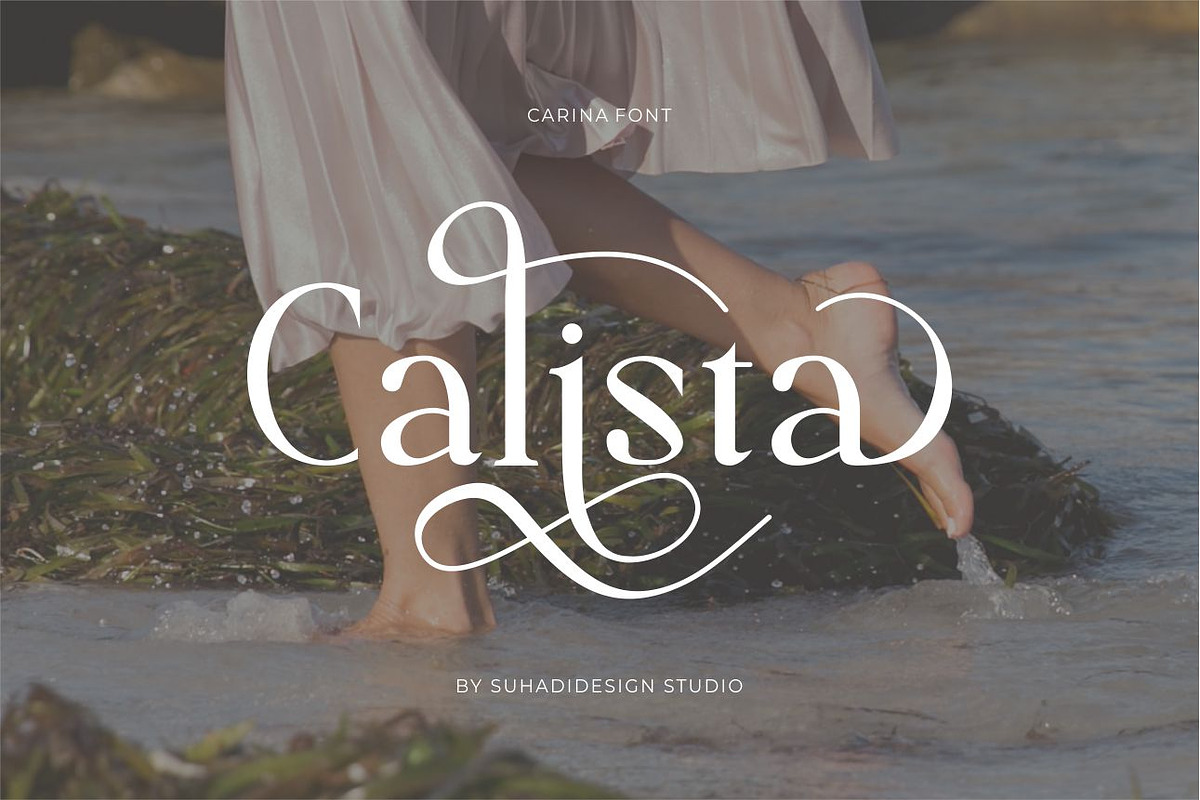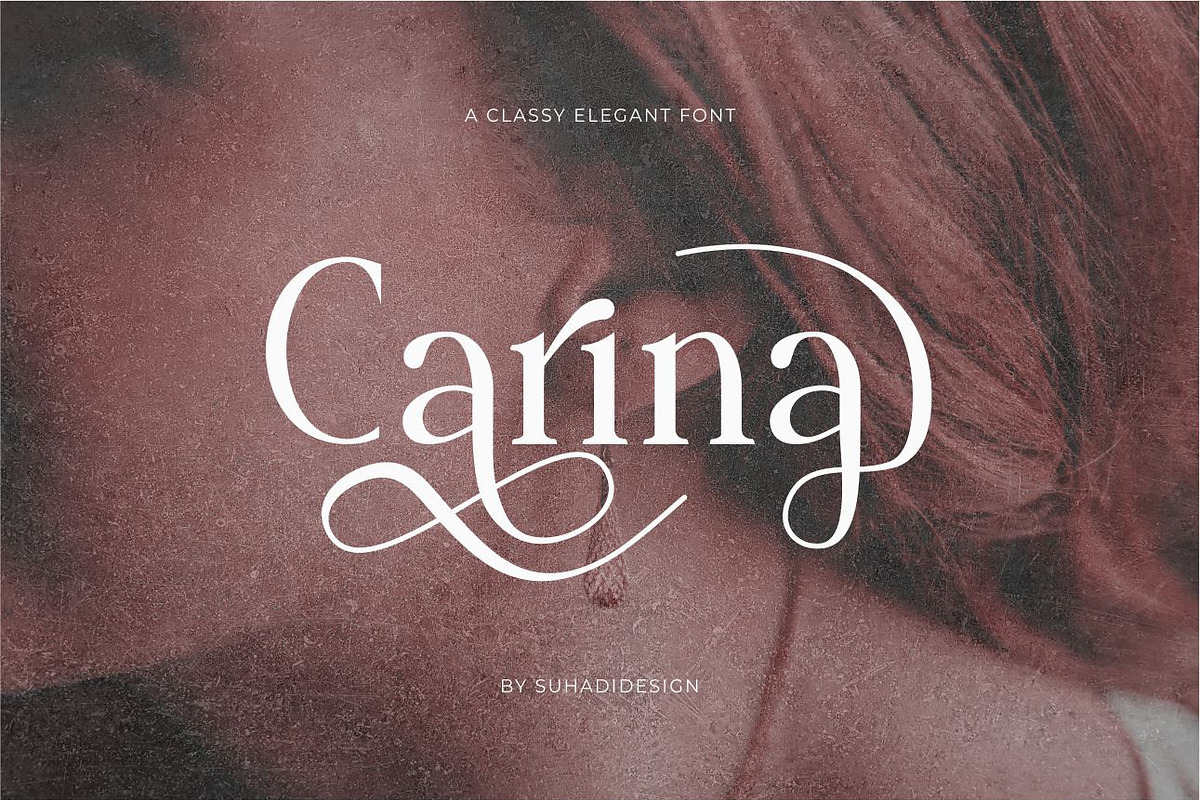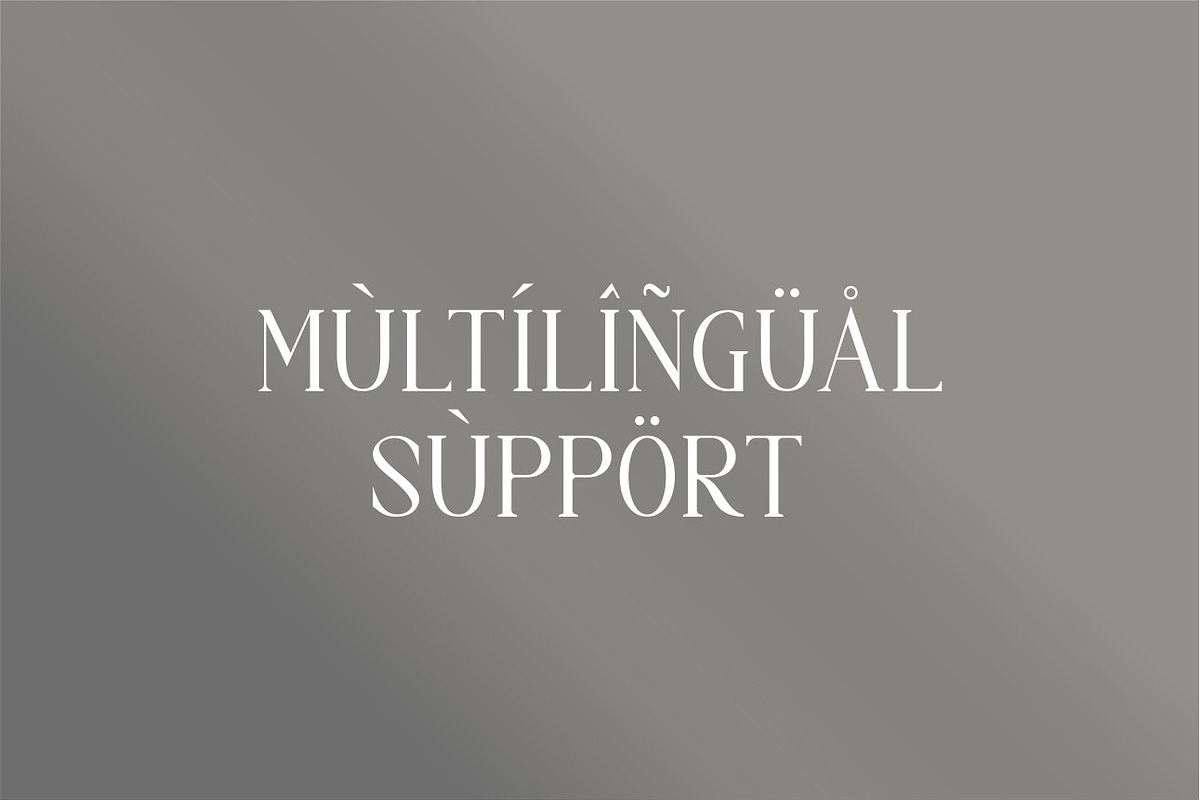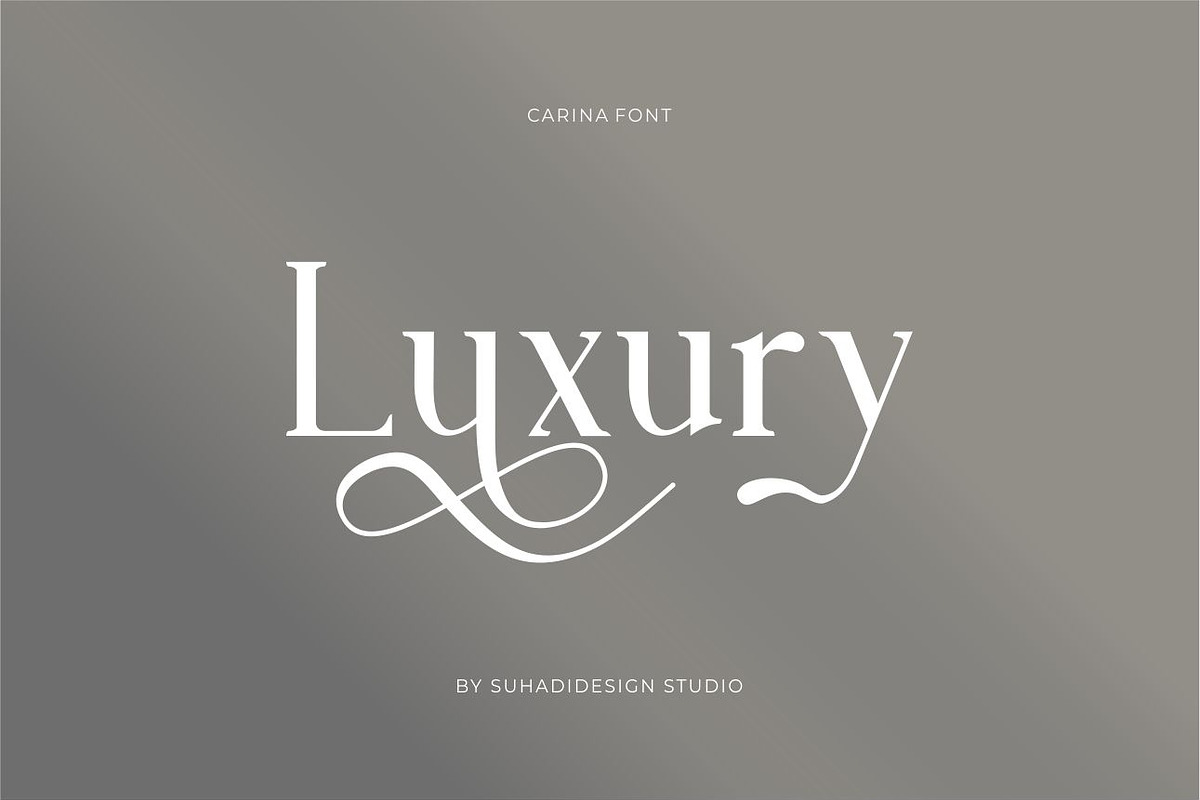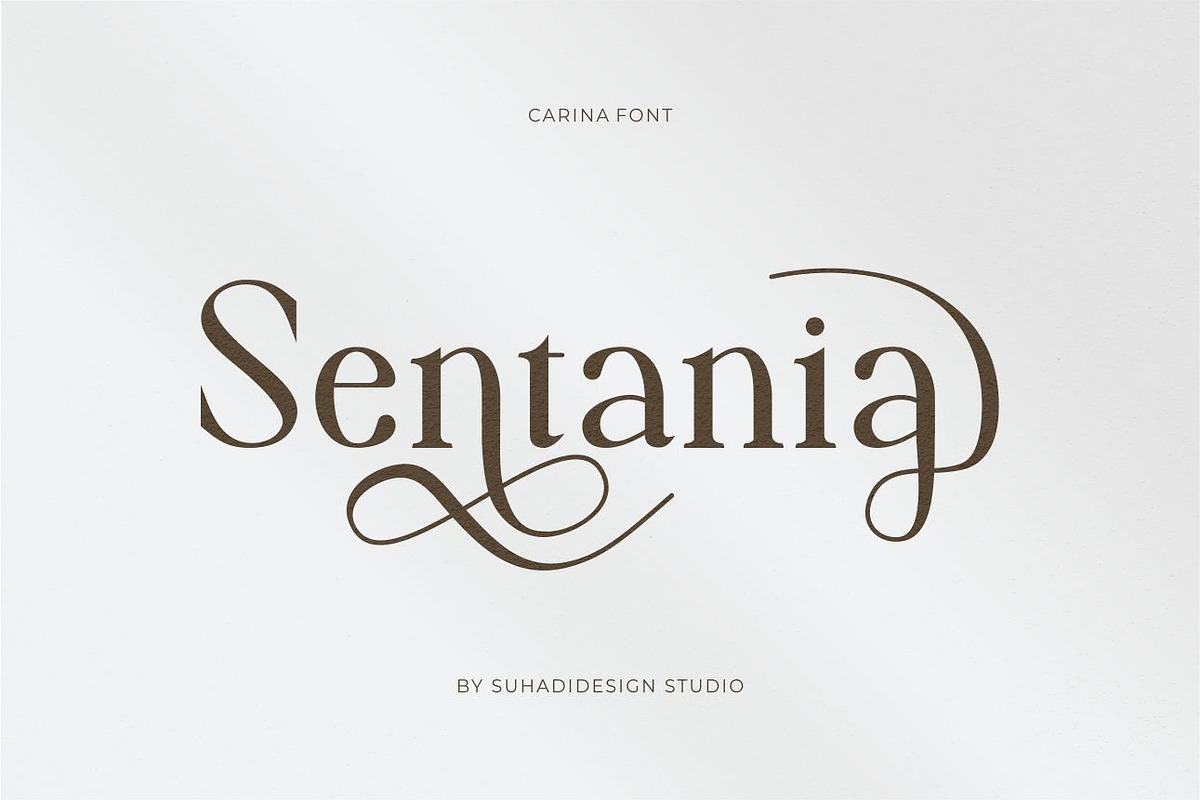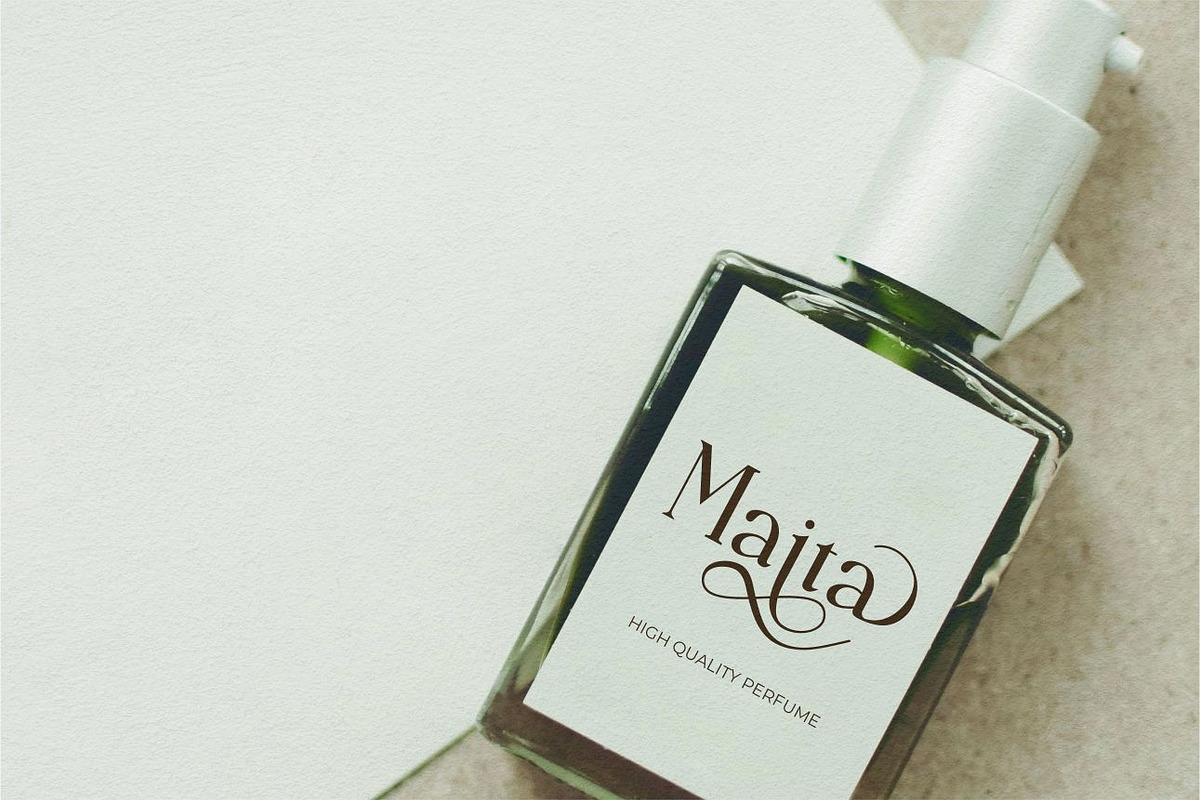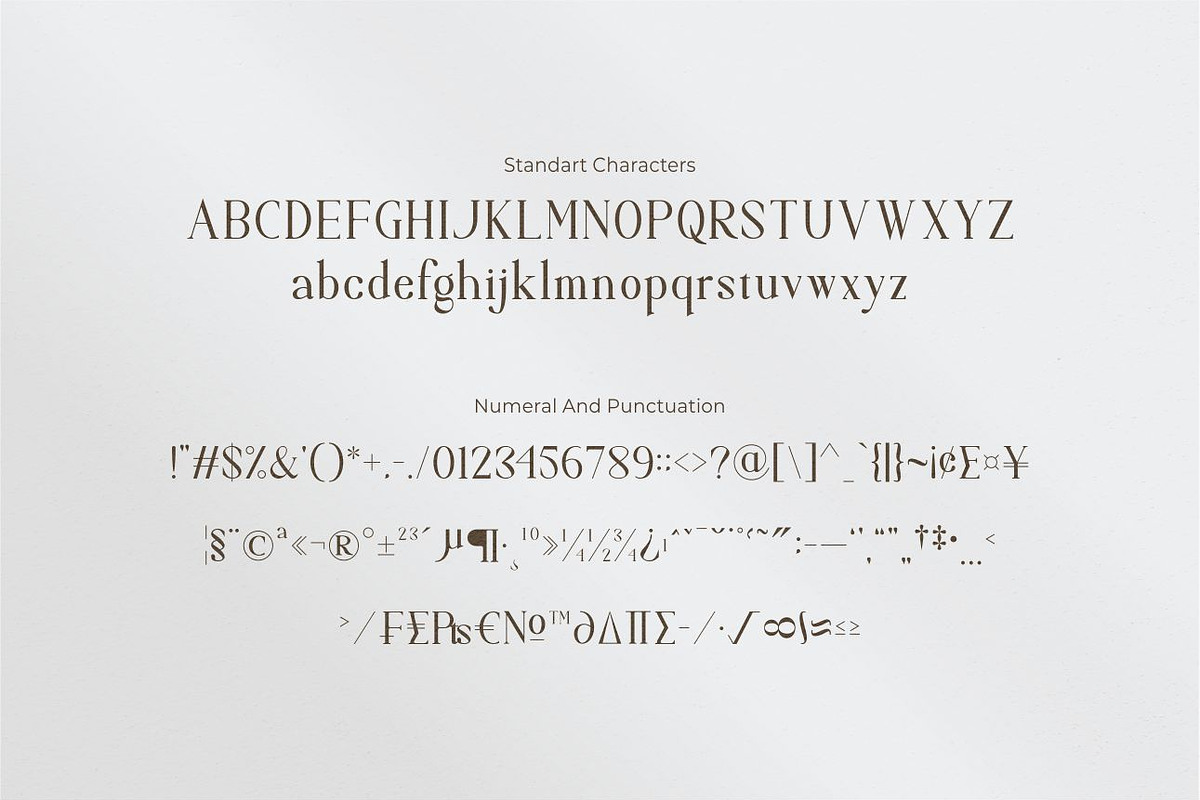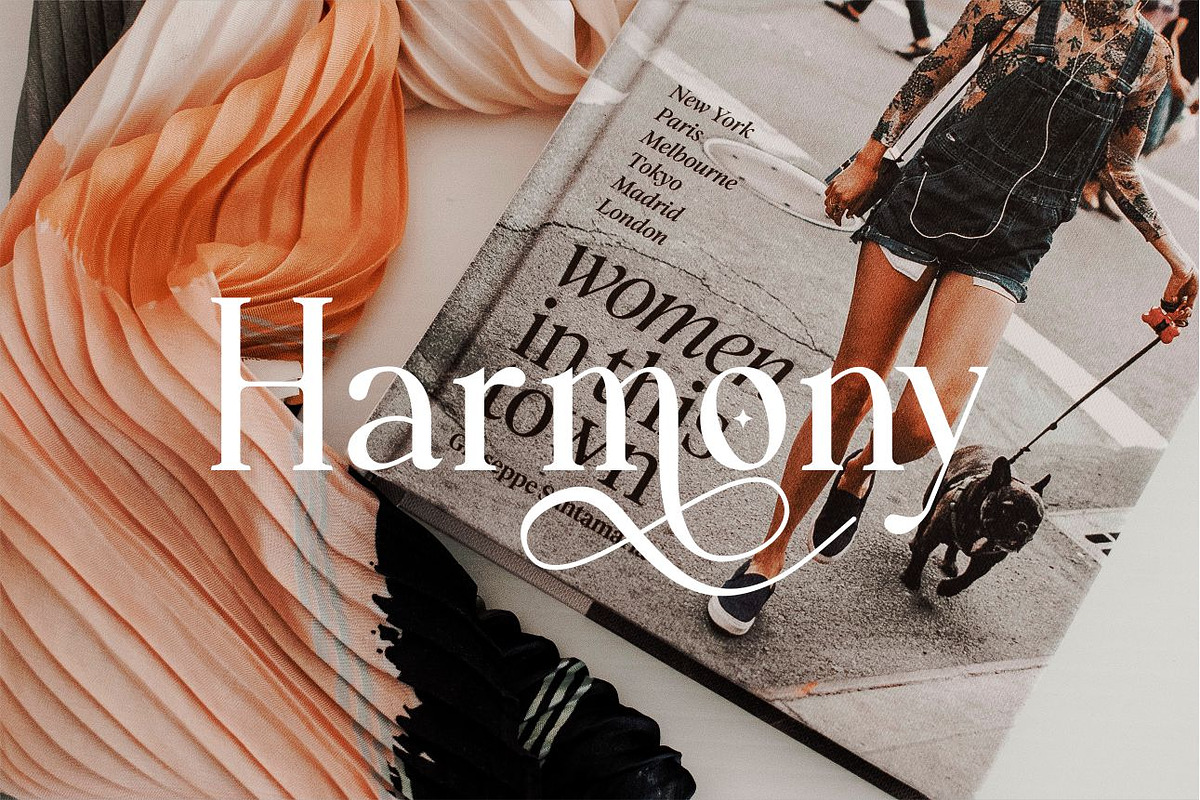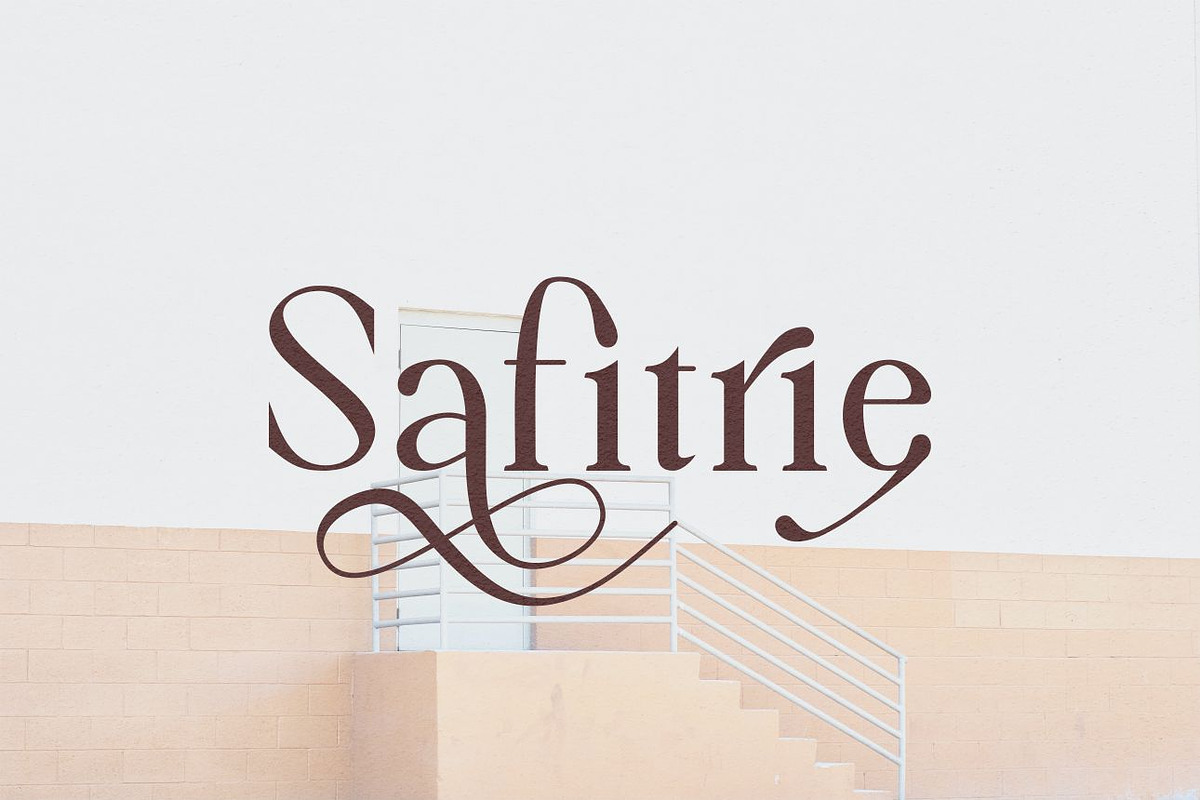
Carina classy elegant font
Hi ladies and gentlemen! Due to the popularity of the market for modern fonts, I created a serif font that suits your needs. The Carina font is a modern classy elegant serif font. is here to become a market favorite. We made this font look elegant, classy, modern, new style, easy to read, stylish, attractive and easy to use. Carina Font is the right choice for magazine designs, newspapers, fashion, classy designs, beauty, feminine, brand names, branding and other projects. The Carina font is here to enhance the quality of your designs.
Feature:
• Uppercase • Lowercase • Multilingual Support • Numbers and punctuation • Alternatives • Stylistic sets • Ligatures